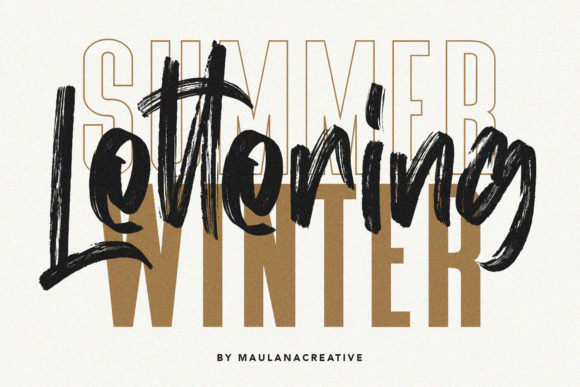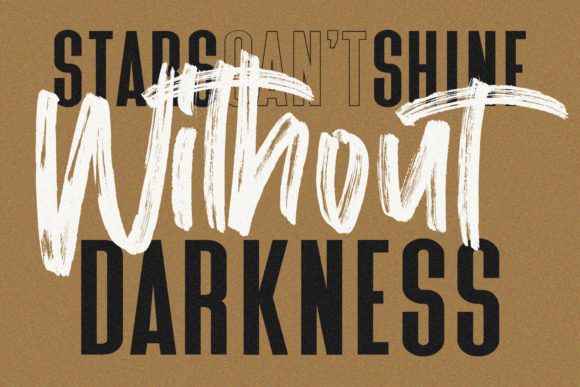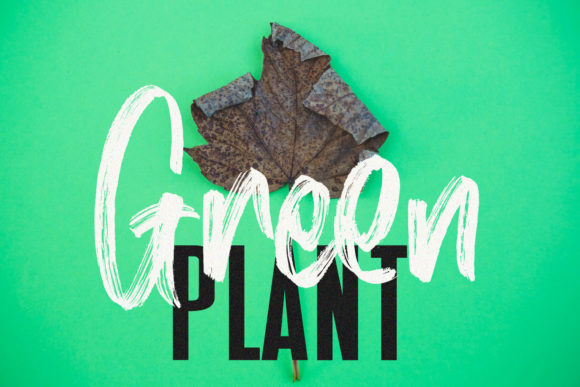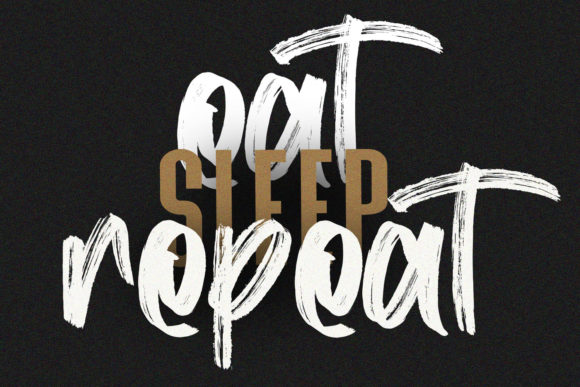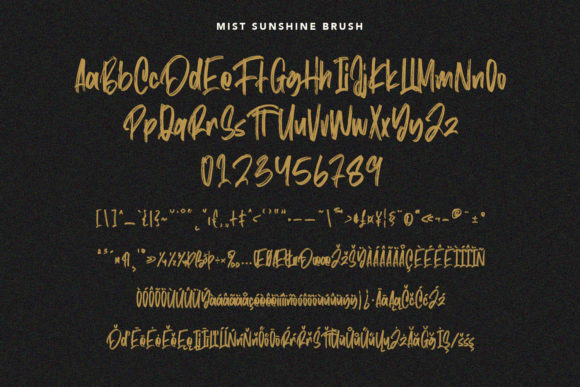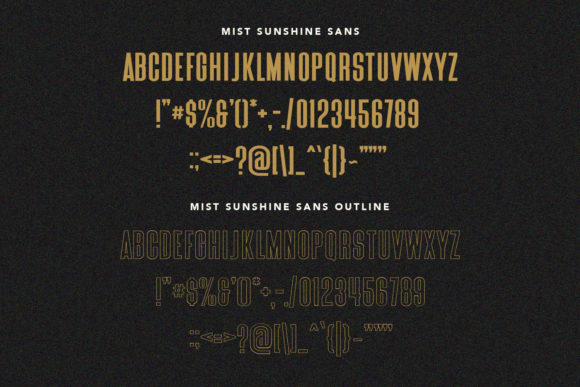
Introduction to Mist Sunshine Font
There’s something magical about stumbling upon the perfect font for a creative project. The excitement is palpable, and your design starts to come together in a way that feels truly special. For designers, finding that perfect font can be the difference between a good design and a great one. And that’s exactly what the Mist Sunshine Font offers – a bold and thick lettered brushed display font that’s sure to make each of your designs stand out.
Whether you’re working on a free download project or a high-quality commercial design, the Mist Sunshine Font is an invaluable resource for any designer. Its dramatic and original style is perfect for adding a touch of personality to your designs, and its transparent background makes it easy to use in a variety of different contexts.
Key Features of Mist Sunshine Font
- High-Quality Typography: The Mist Sunshine Font is designed to provide a clear and readable experience for creative projects, making it an ideal choice for designers and artists.
- Unique Character Set: The Mist Sunshine Font features a unique character set that includes a wide range of characters, accents, and symbols, making it a versatile choice for creative projects.
Honest Review: Mist Sunshine Font
As a designer, I’ve had the pleasure of working with a wide range of fonts, but the Mist Sunshine Font has left a lasting impression. ✨ This font is perfect for any creative project that requires a touch of whimsy and sophistication.
Here are some of the features that make the Mist Sunshine Font stand out:
- Unique and playful design style
- Perfect for creative projects, such as branding, advertising, and packaging
- High-quality design that translates well across various resolutions and devices
While the Mist Sunshine Font is an excellent addition to any designer’s toolkit, there are a few limitations to consider: ⚠️ The font may not be suitable for formal or professional projects, and some users may find the design style too playful for certain applications.
Mist Sunshine Font
Tips for Getting the Most Out of Mist Sunshine Font
To get the most out of the Mist Sunshine Font, use it in conjunction with a high-quality image or background to create a visually appealing design. Experiment with different font sizes and styles to create a unique and creative look.
The Mist Sunshine Font is ideal for use in wedding invitations, birthday cards, and other creative projects that require a touch of elegance and sophistication. Its transparent background makes it easy to use in conjunction with other design elements, making it a versatile design resource for any project.